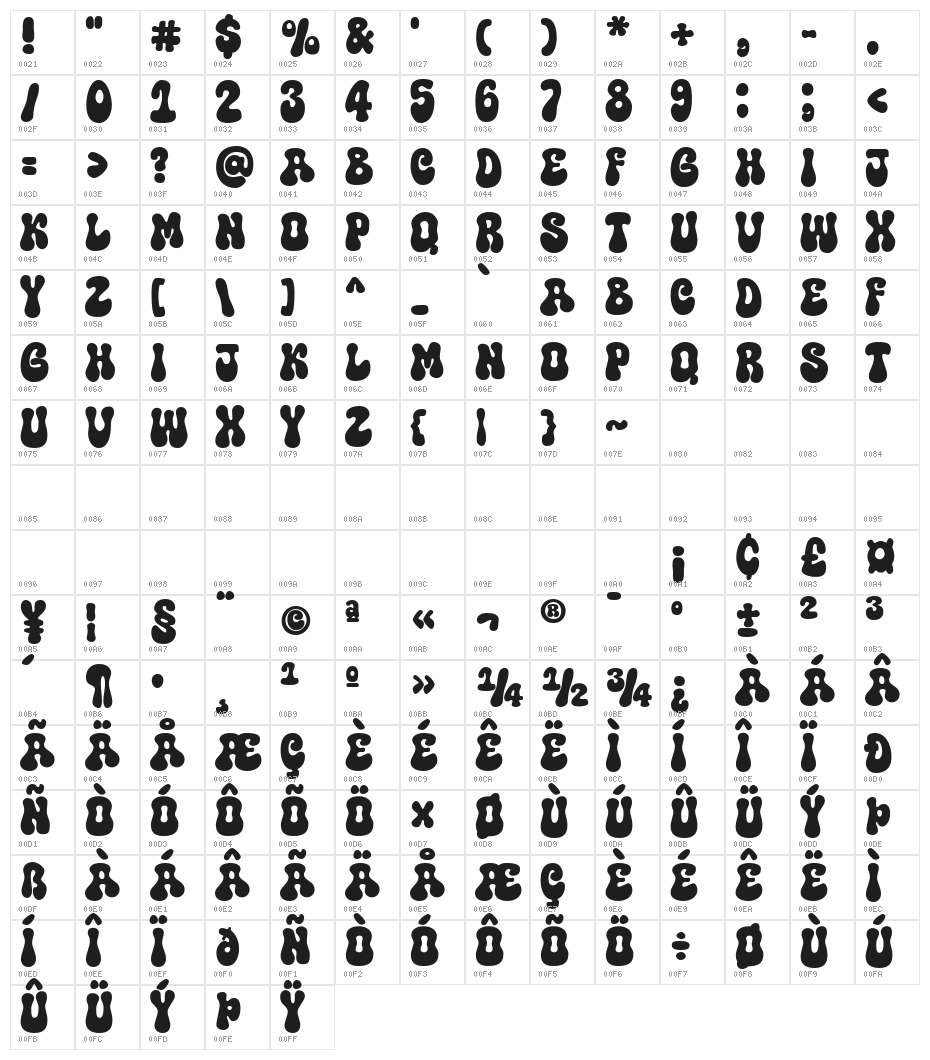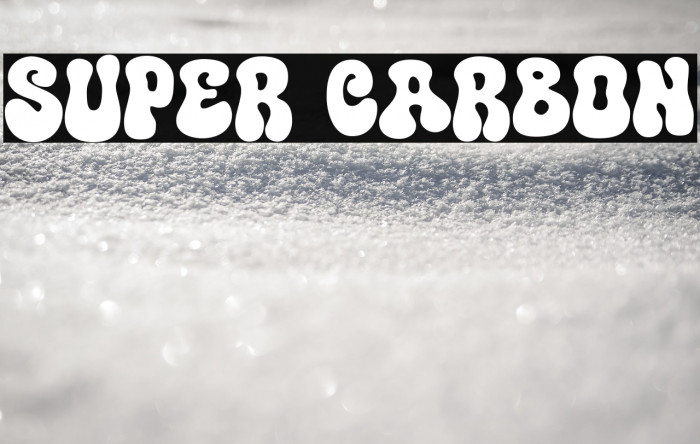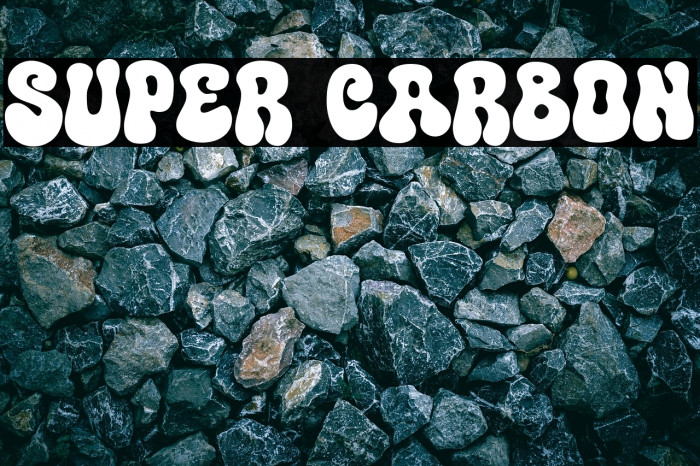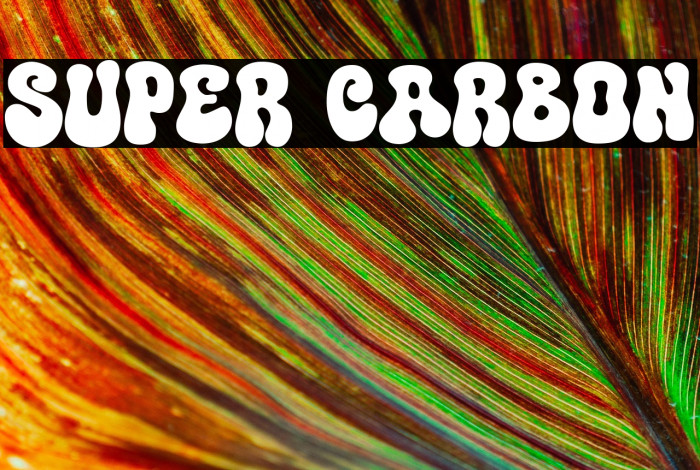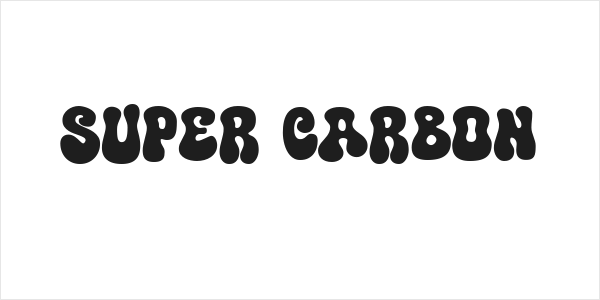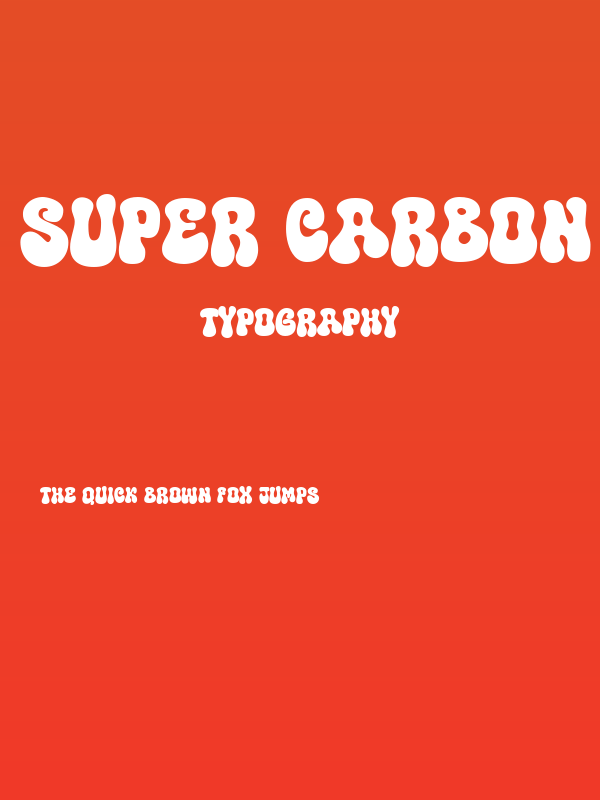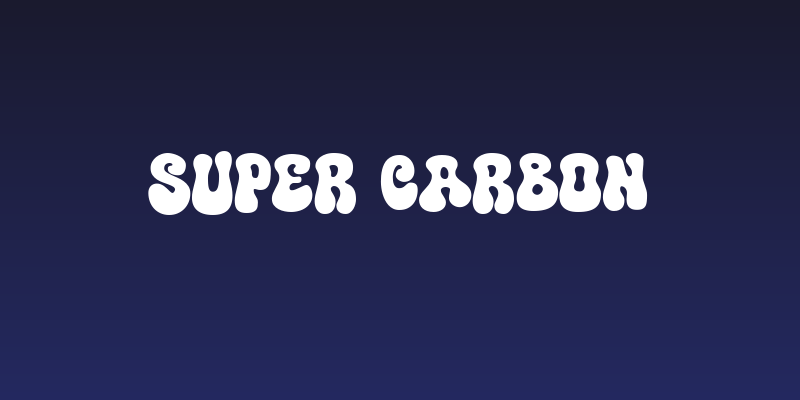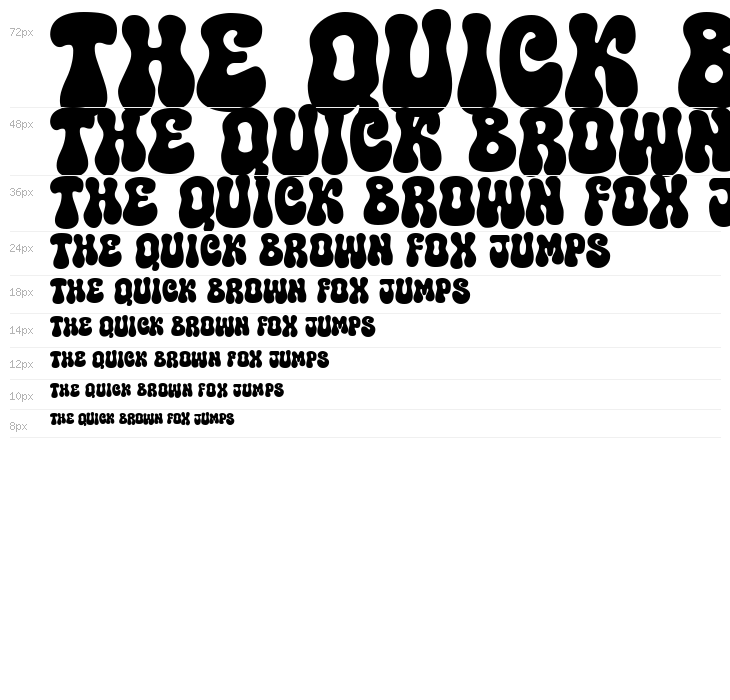
Super Carbon Font
Super Carbon Description
This font features a bold and playful design with thick, rounded characters that exude a sense of fun and creativity. The letters are heavily weighted, giving them a strong presence, while the rounded edges soften the overall look, making it approachable and friendly. The font's unique style is characterized by its bubbly, almost liquid-like appearance, which makes it stand out in any design. The numbers and special characters maintain the same playful aesthetic, ensuring consistency across all text elements. This font is perfect for projects that require a touch of whimsy and boldness.